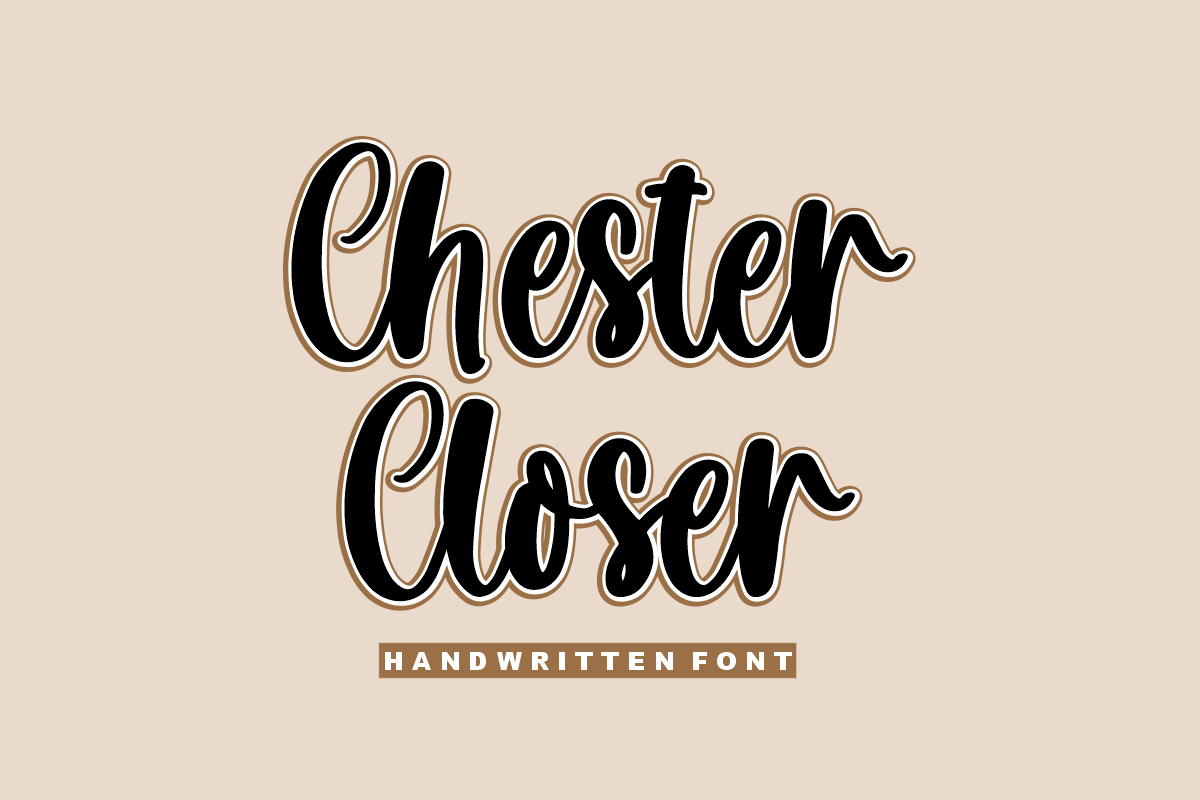
- Chester Closer – Handwritten Font
Chester Closer
Chester Closer– is a modern handwritten. This font is made in a modern style with elegantly, very casual and suitable for your various design needs. It’sPerfect for logo, branding, tittle, social media posts, advertisements, product packaging, product designs, label, photography, watermark, special event, magazine, web design, etc.